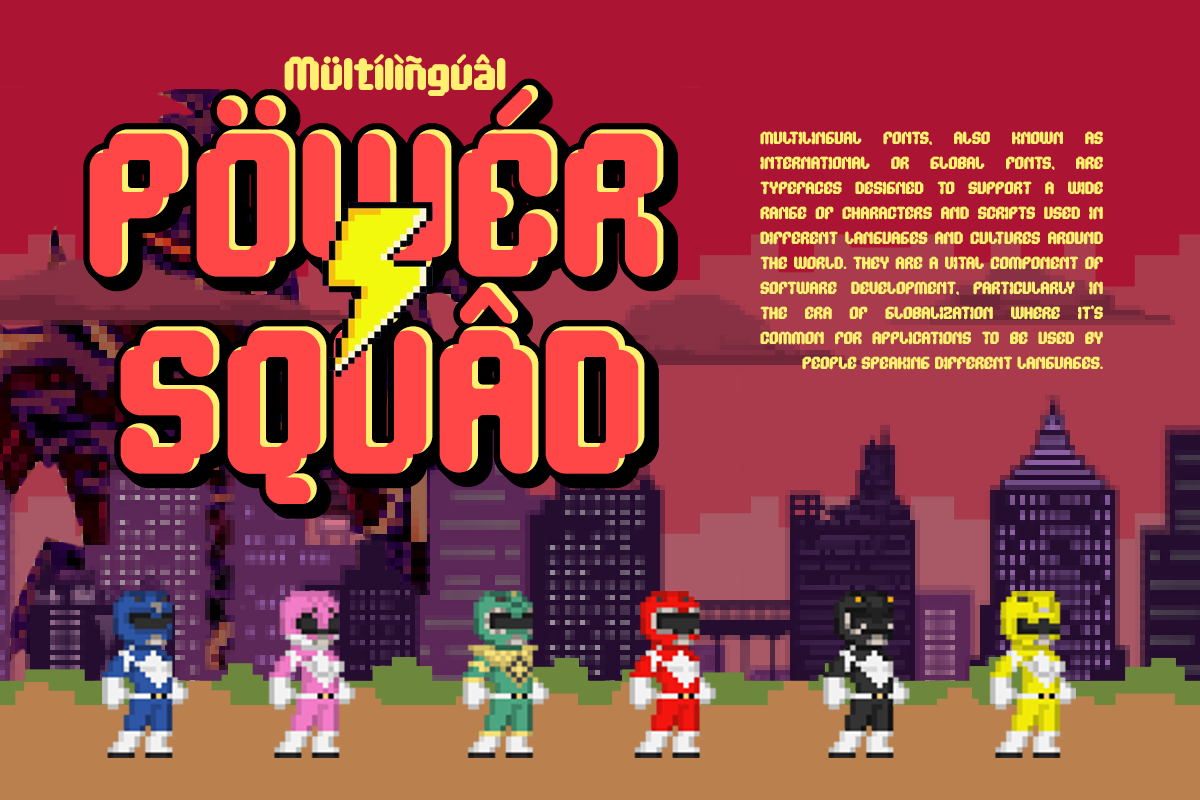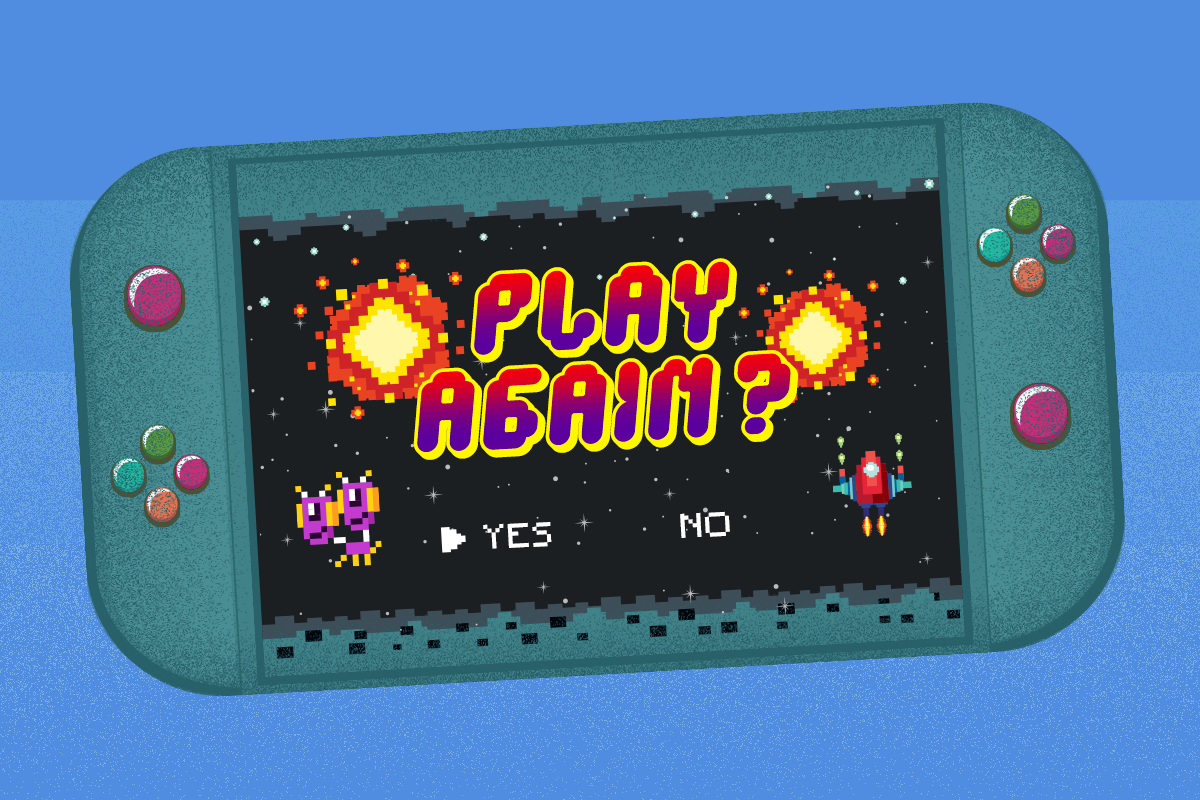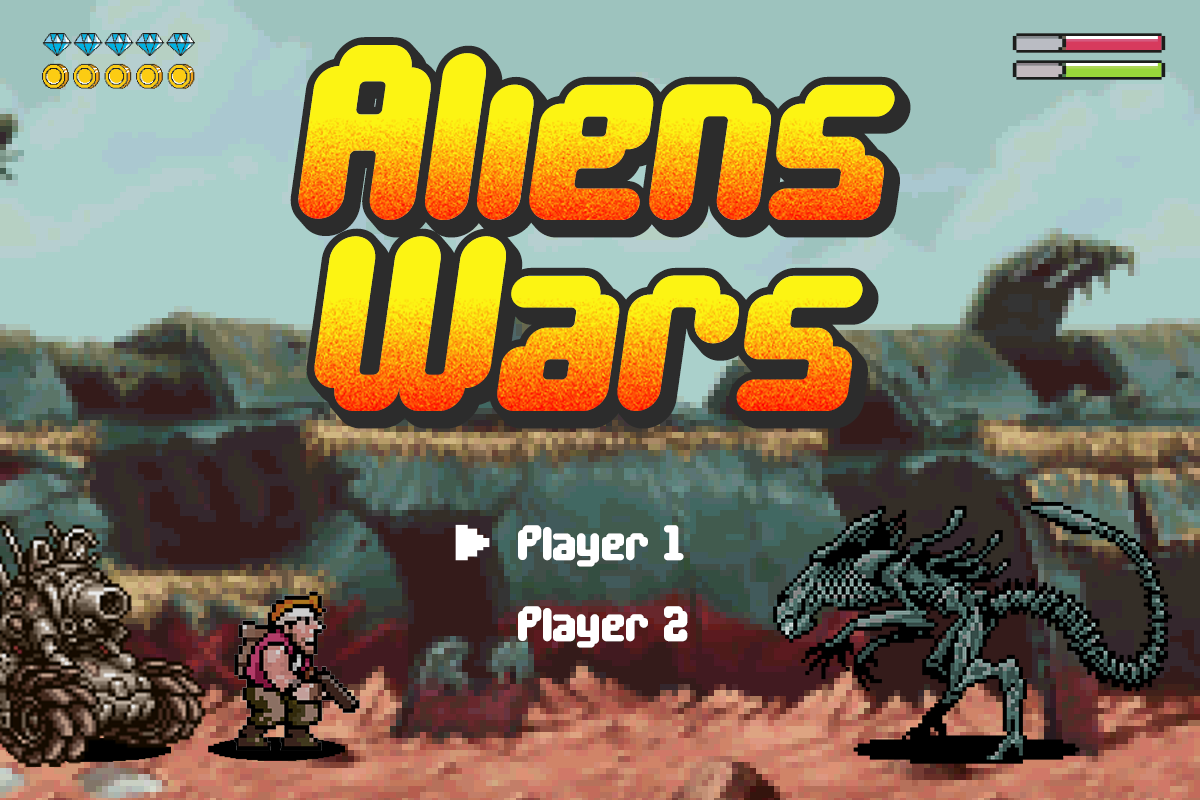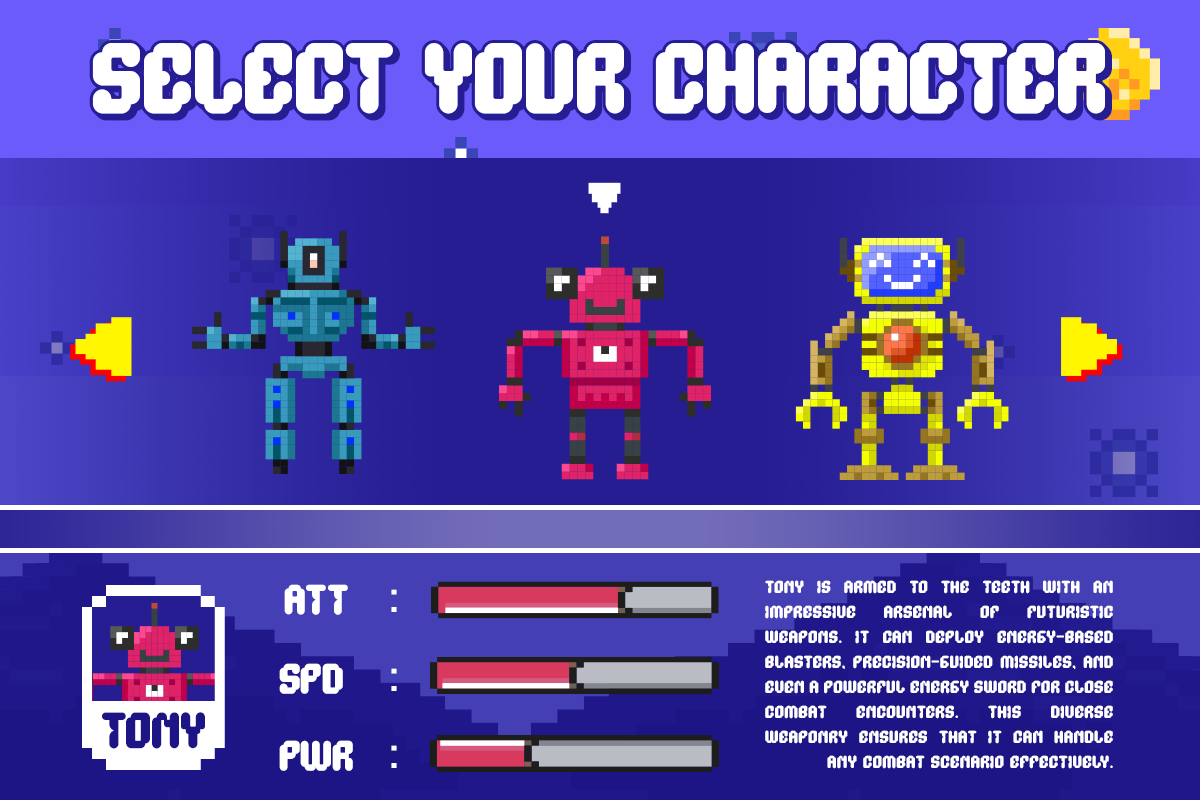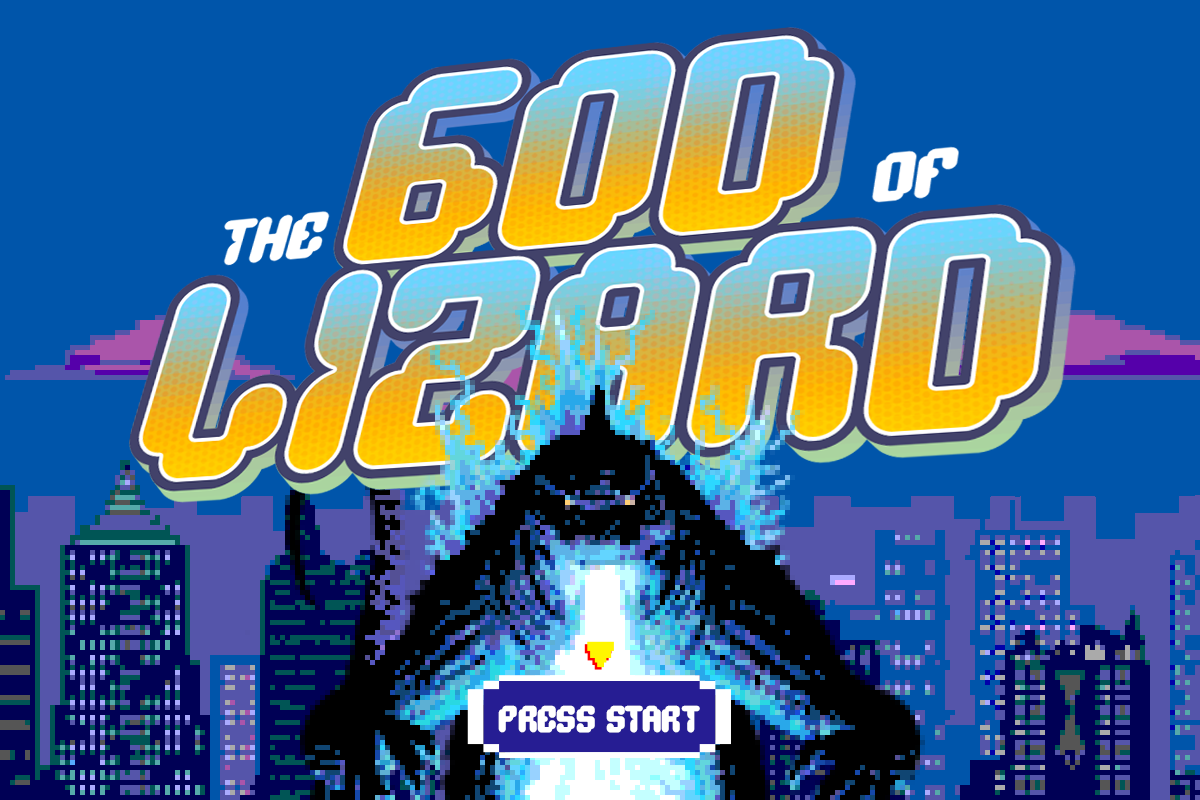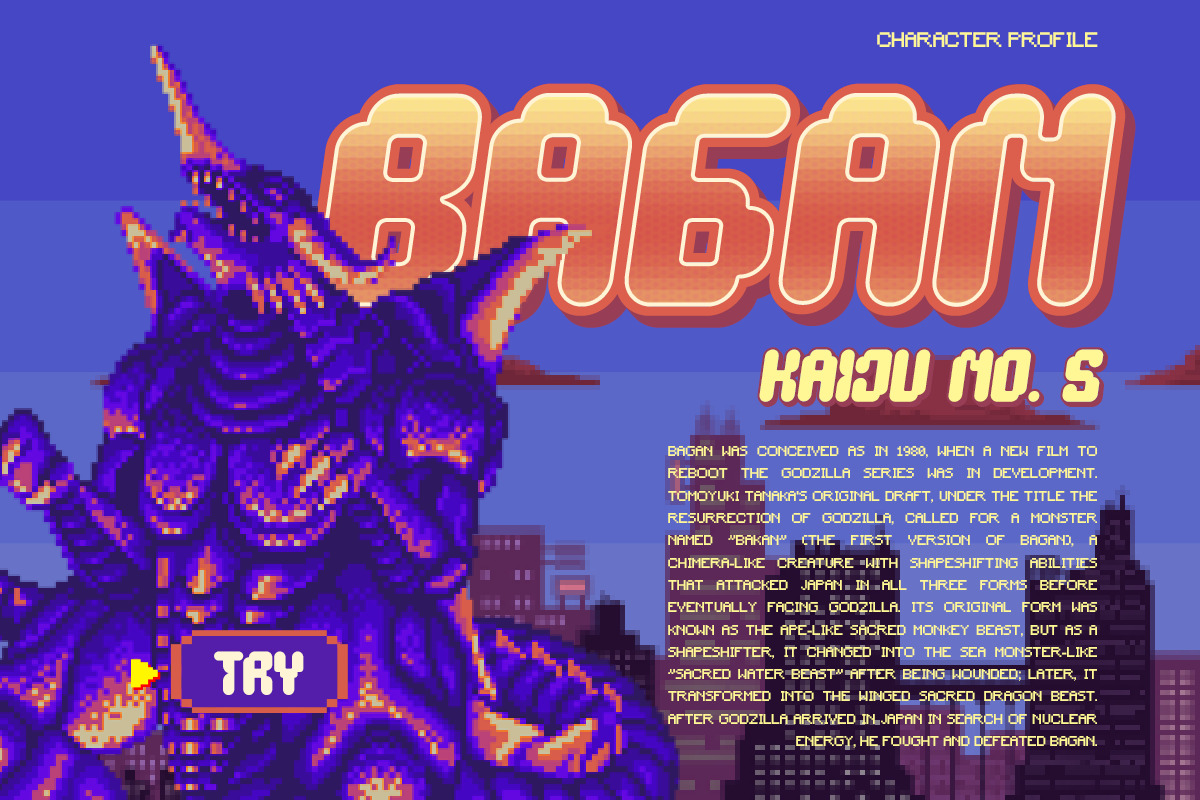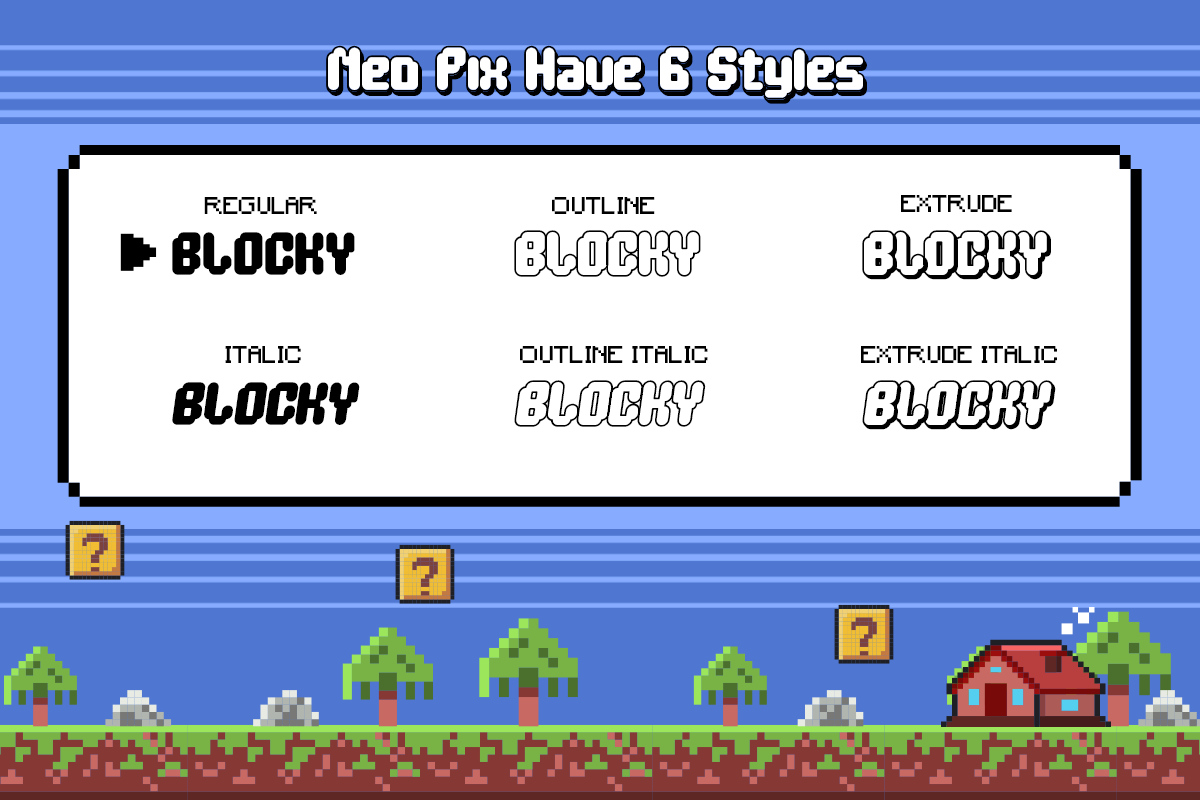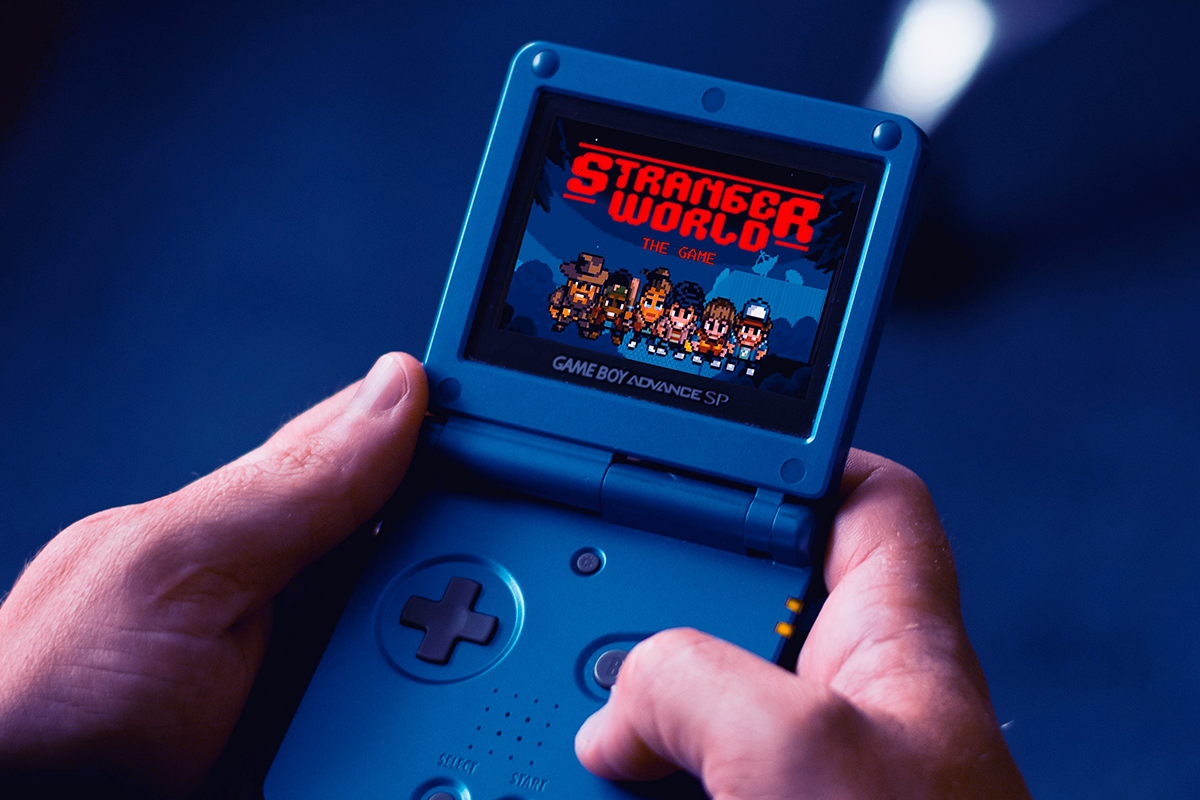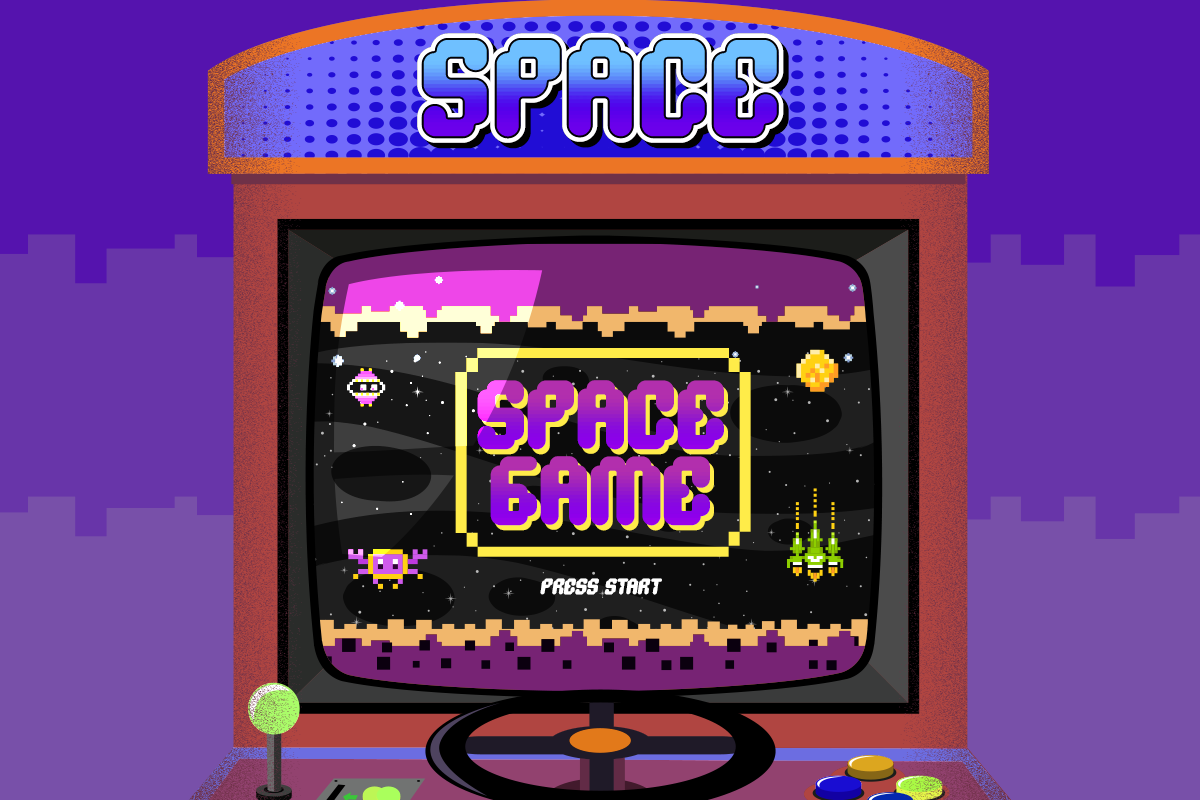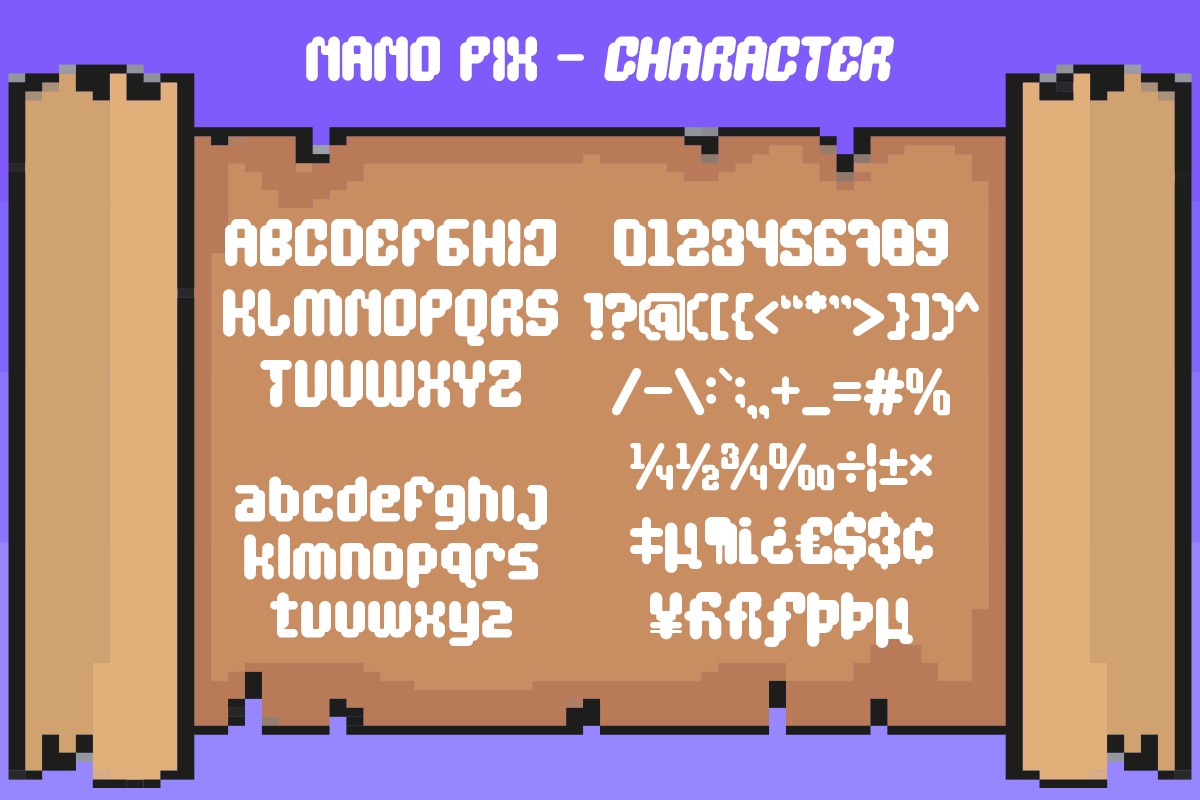
Nano Pix - Pixel Game Family
Get ready to level up with the amazing NANO PIX font! 🎮
Embrace the nostalgic charm of pixelated games with its versatile 6 Styles: Regular, Italic, Outline, Extrude, Outline Italic, and Extrude Italic. Unleash your creativity in the world of pixel art, as this font brings a touch of retro gaming magic to your designs.
Whether you're crafting captivating logos, designing captivating posters, or even adding a unique flair to your tees, NANO PIX is your ultimate toolkit.
Let your imagination run wild and infuse your creations with that pixel-perfect touch!
Has 6 Variable: Regular, Italic, Outline, Extrude, Outline Italic, and Extrude Italic
Unique Letterforms
Elevate your design game with the power of pixels!